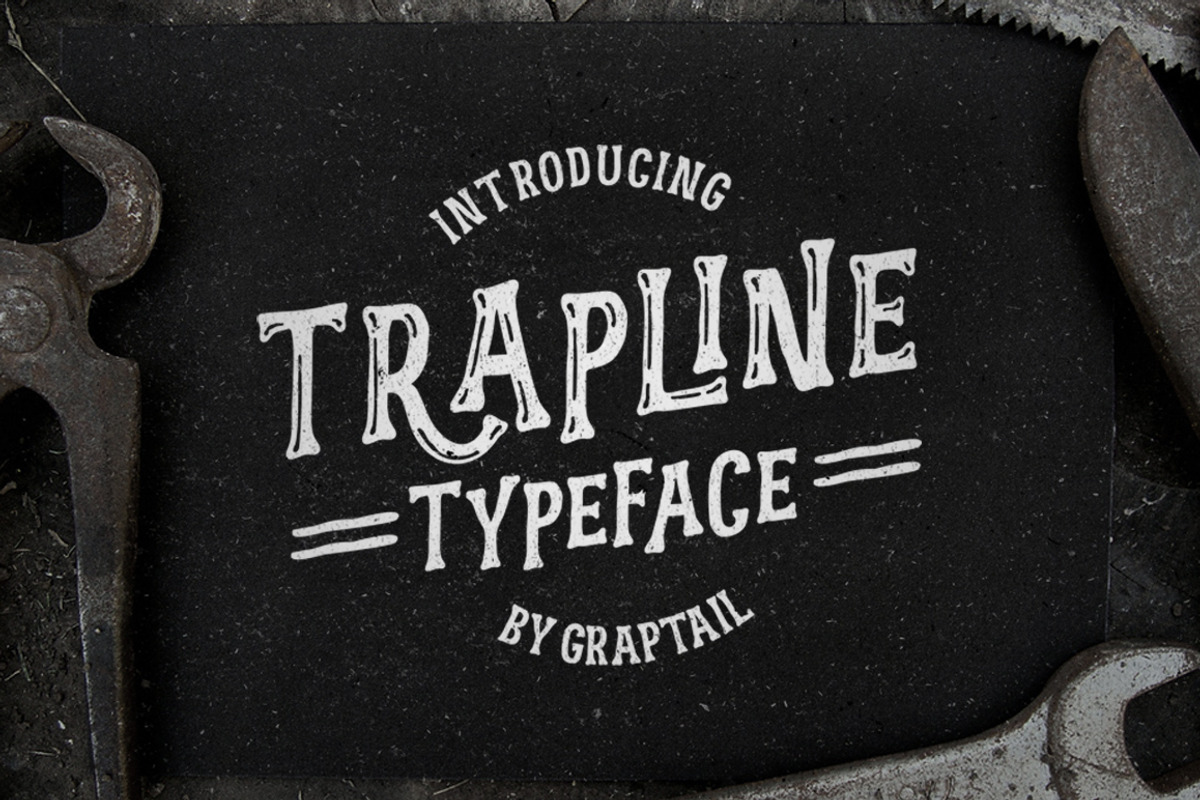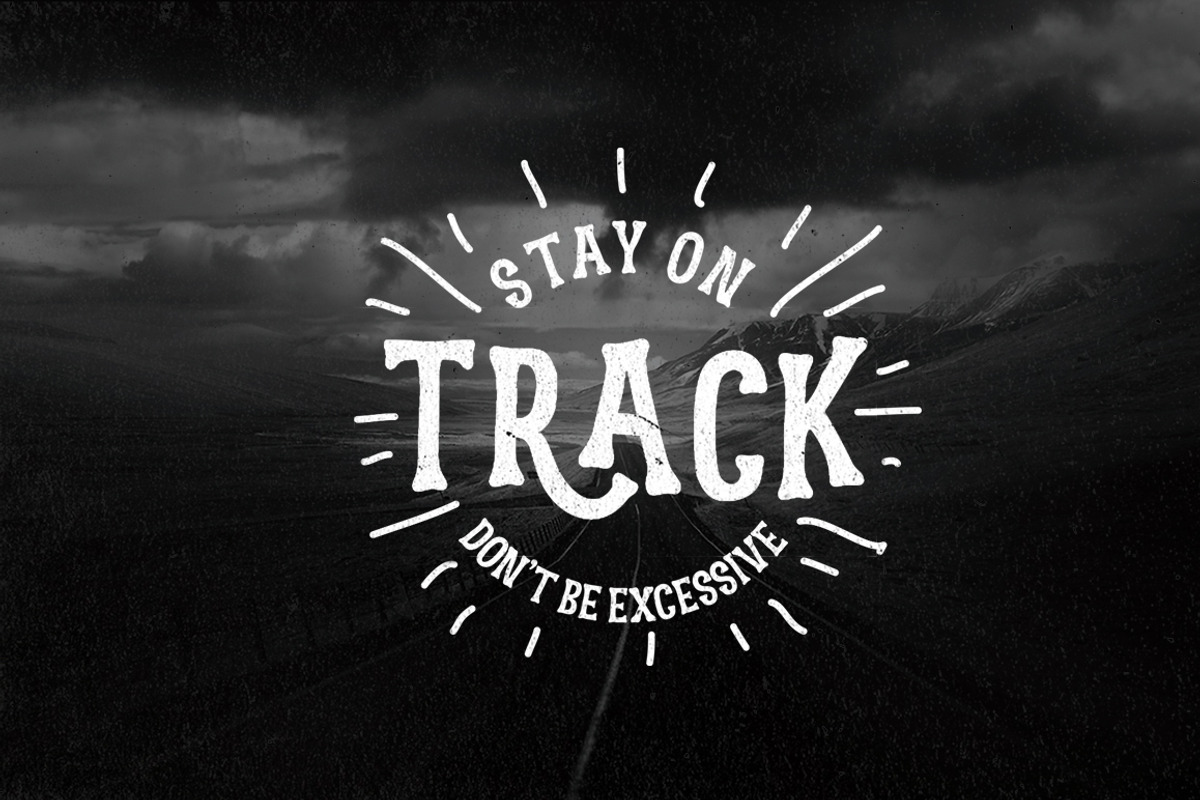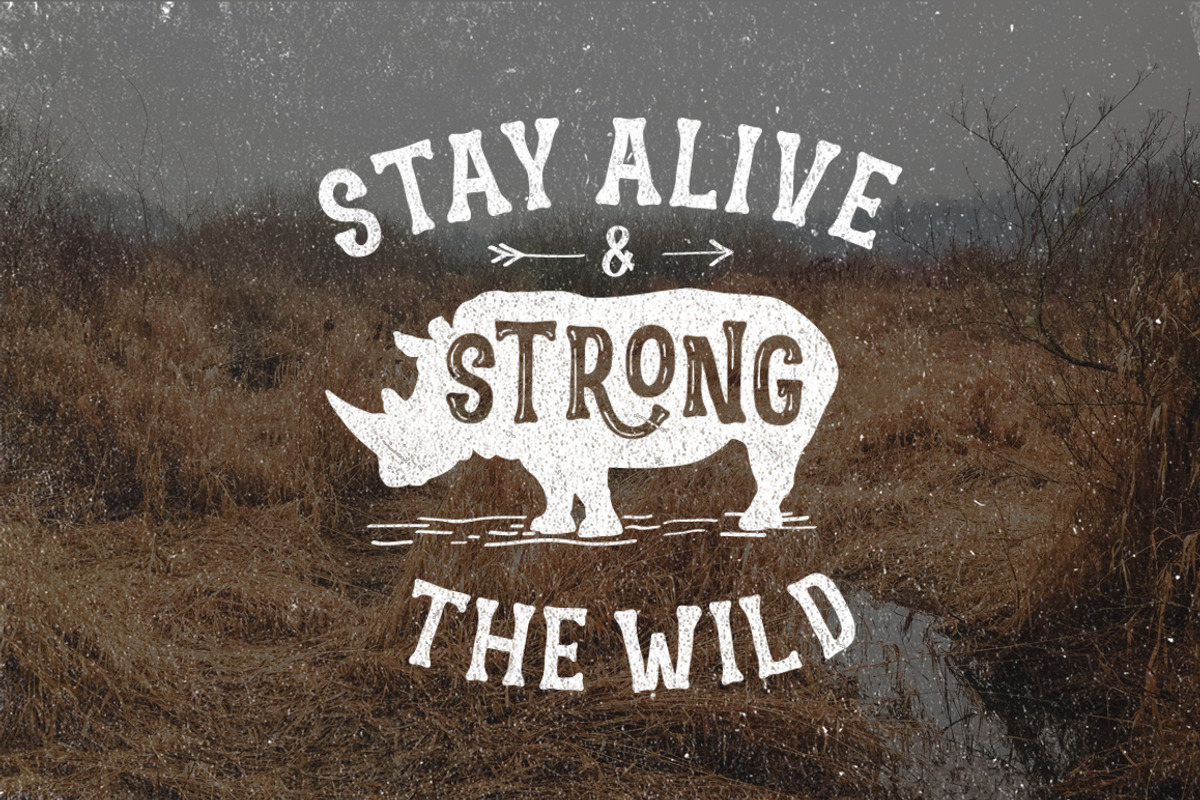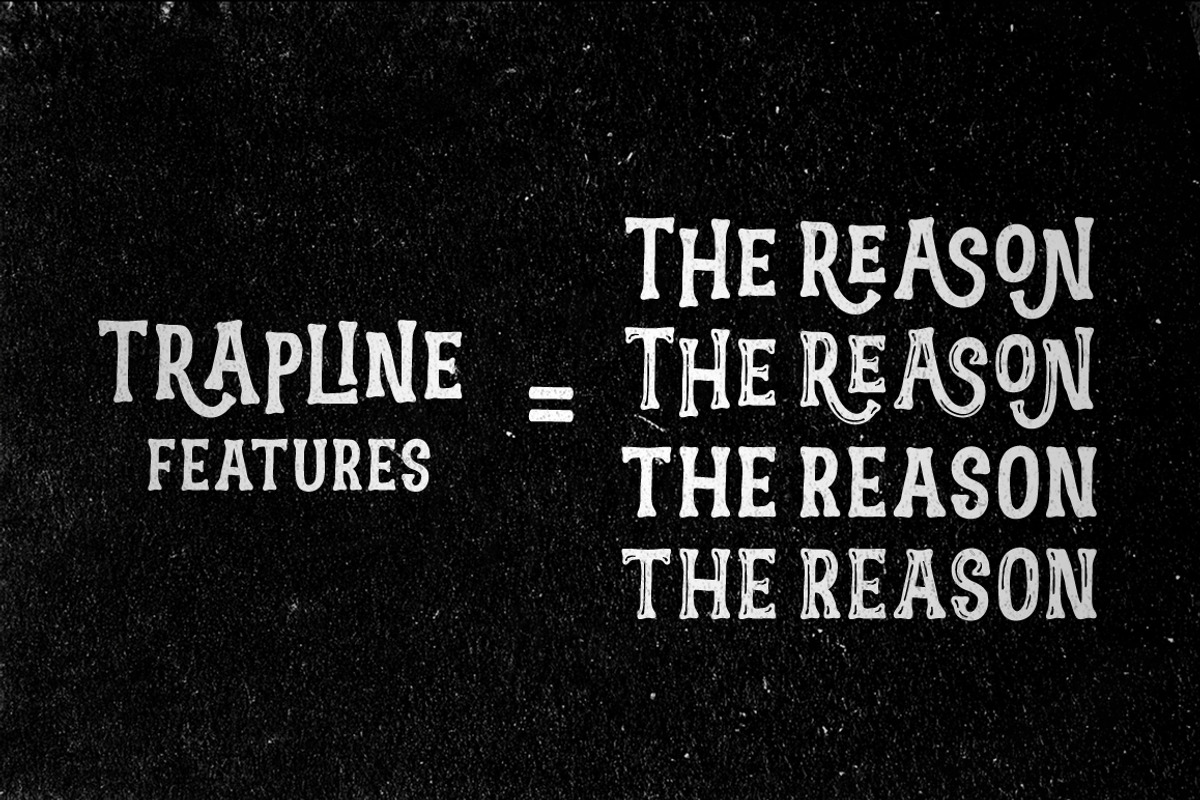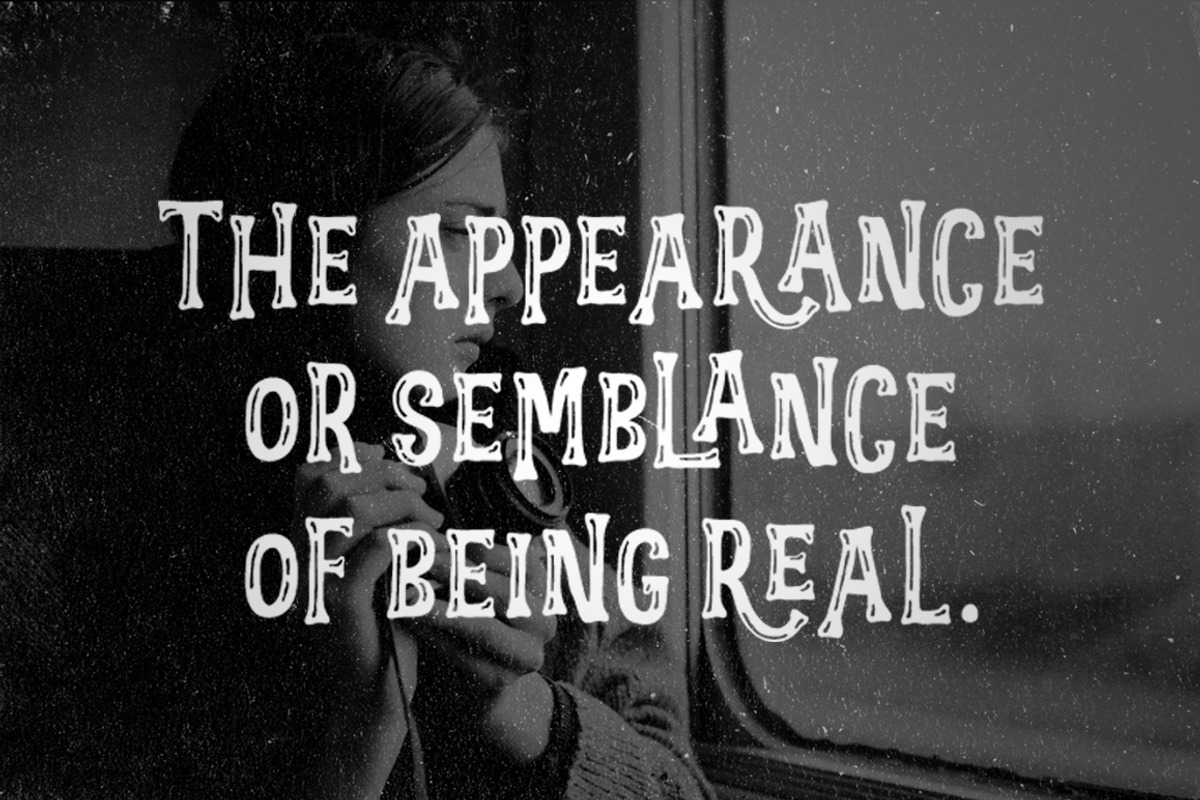
Trapline Typeface
Trapline Typeface by Graptail is a font selected for branding, posters, packaging, typography.
- Trapline Typeface comes with 4 variations of each variation combined with uppercase and lowercase letters.
Why Trapline Typeface is worth a look
Trapline Typeface by Graptail fits naturally into Branding, posters, packaging, typography.